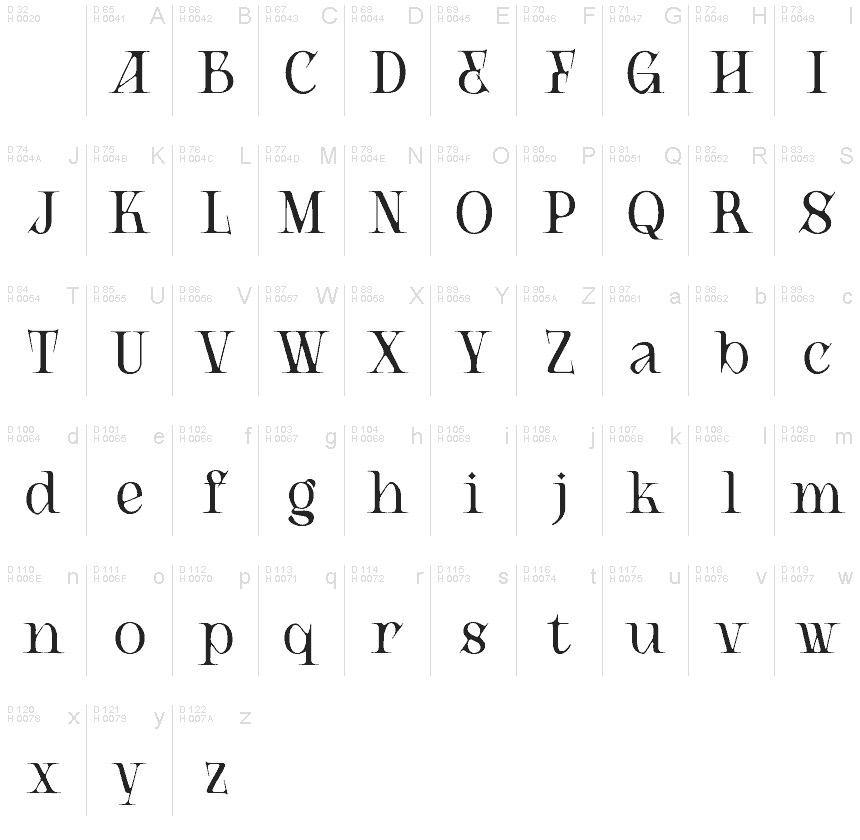
CSAldenDrawn-Regular Demo
CS Alden Drawn font by Craft Supply Co. is an elegant serif typeface whose sophisticated appearance stems from the refined outlines and an inviting aura of classical designs. The font is composed with smooth curves and appealing legibility in mind, making its contemporary usage quite common for applications in luxury branding along with marketing purposes.
This free serif font can be further used for product labels, packaging, book covers, posters, catalogs, and signage. Websites built by agencies and freelancers will also benefit from clear uses across headers or main body texts on brochures that inform consumers about a certain service or product as well.